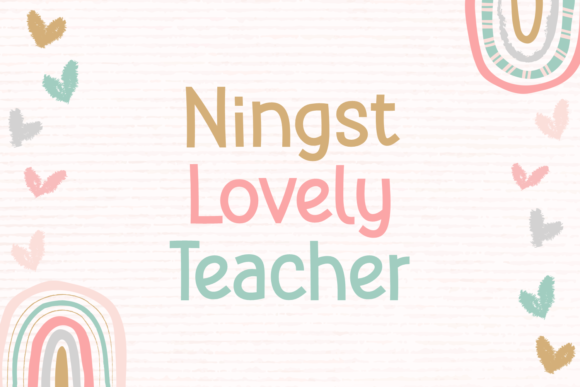
Get ready to be captivated by Ningst Lovely Teacher Font, a display font that radiates joy and warmth like a ray of sunshine on a cloudy day. This charming font invites you to experience the beauty of handwritten letters, meticulously crafted to evoke a sense of childlike wonder and innocence.
Ningst Lovely Teacher Font is a visual delight, featuring smooth, flowing curves that dance across the page, creating an effortlessly readable and visually appealing text. Its playful and cheerful nature makes it a perfect choice for a wide range of creative projects, from heartwarming greeting cards to eye-catching posters and social media graphics.
With Ningst Lovely Teacher Font, you can bring a touch of whimsy and playfulness to your digital designs. Its unique and distinctive style adds a personal touch to your projects, making them stand out from the crowd. Whether you're a seasoned designer or just starting out, this versatile font is sure to become your go-to choice for adding a cheerful and inviting touch to your work.
Step into the world of Ningst Lovely Teacher Font and discover a world of creative possibilities. Unleash your imagination and let this charming font guide you as you design captivating content that resonates with your audience. From cheerful invitations to heartfelt letters, Ningst Lovely Teacher Font will infuse your words with warmth and charm, leaving a lasting impression on those who read them.